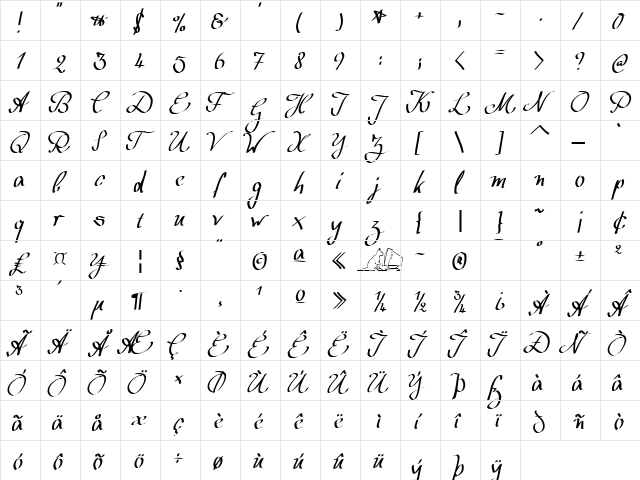
Wolgast Script Regular
| Foundry | CAT Wolgast - Peter wiegel |
| Designer | Peter Wiegel |
Design Context for Wolgast Script Typeface
Wolgast Script brings a calligraphic fluidity to the page — its connecting strokes and expressive curves give it an unmistakably human quality.